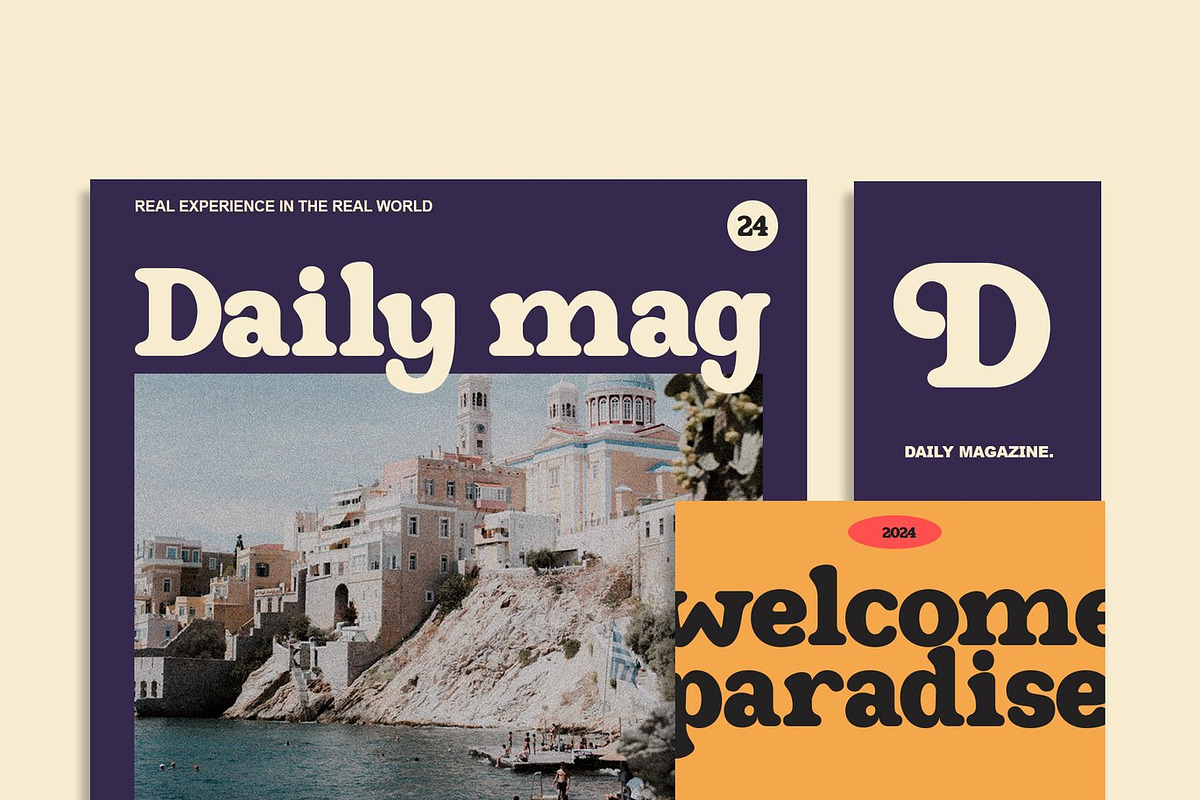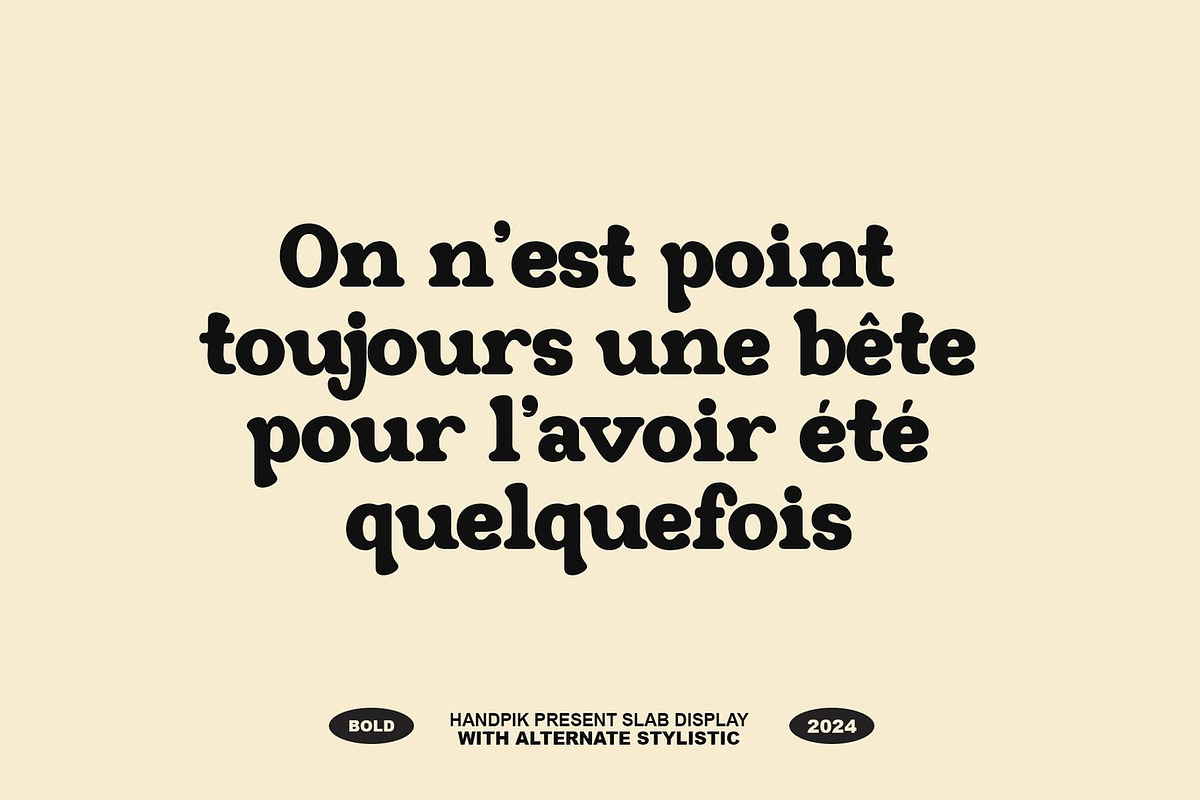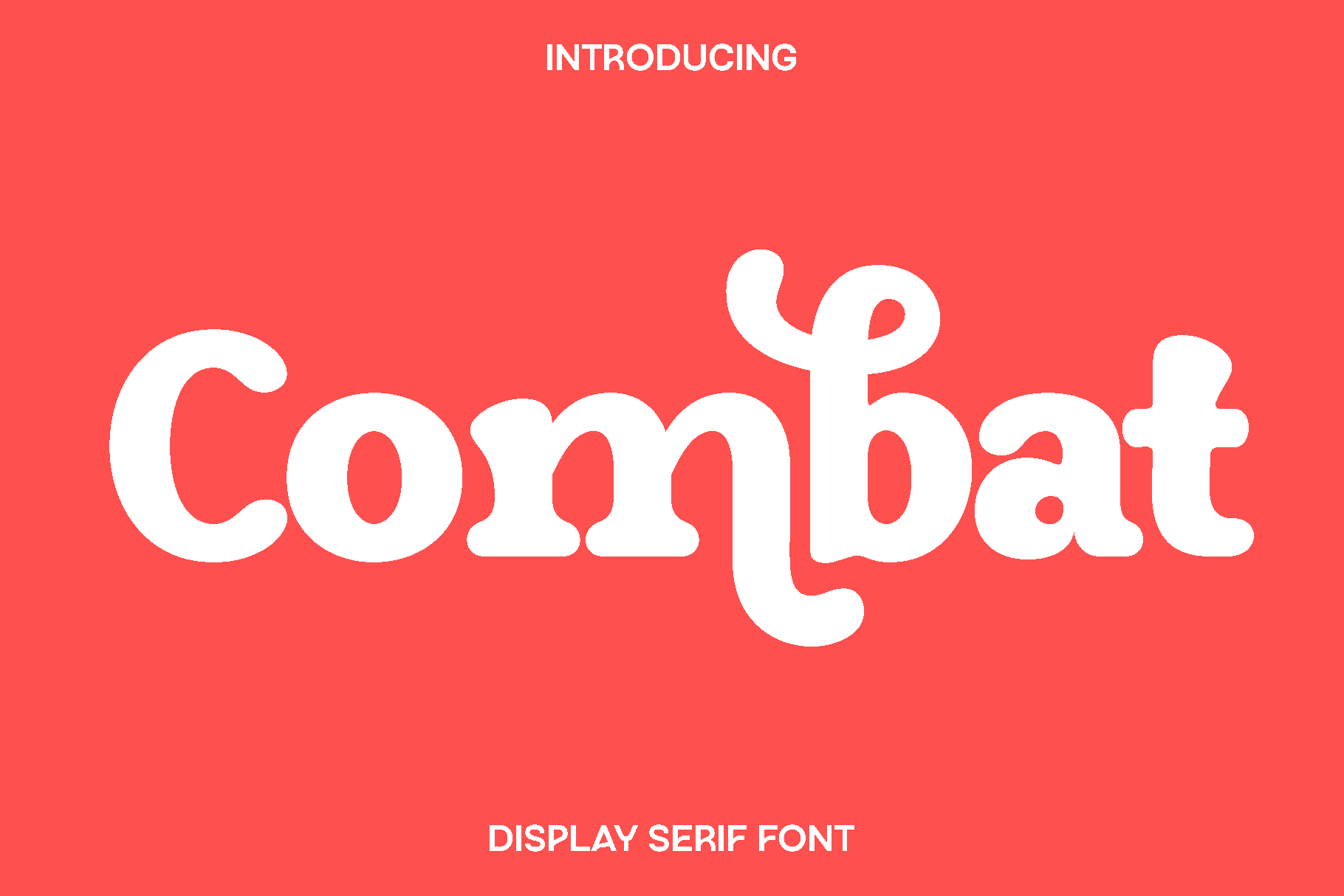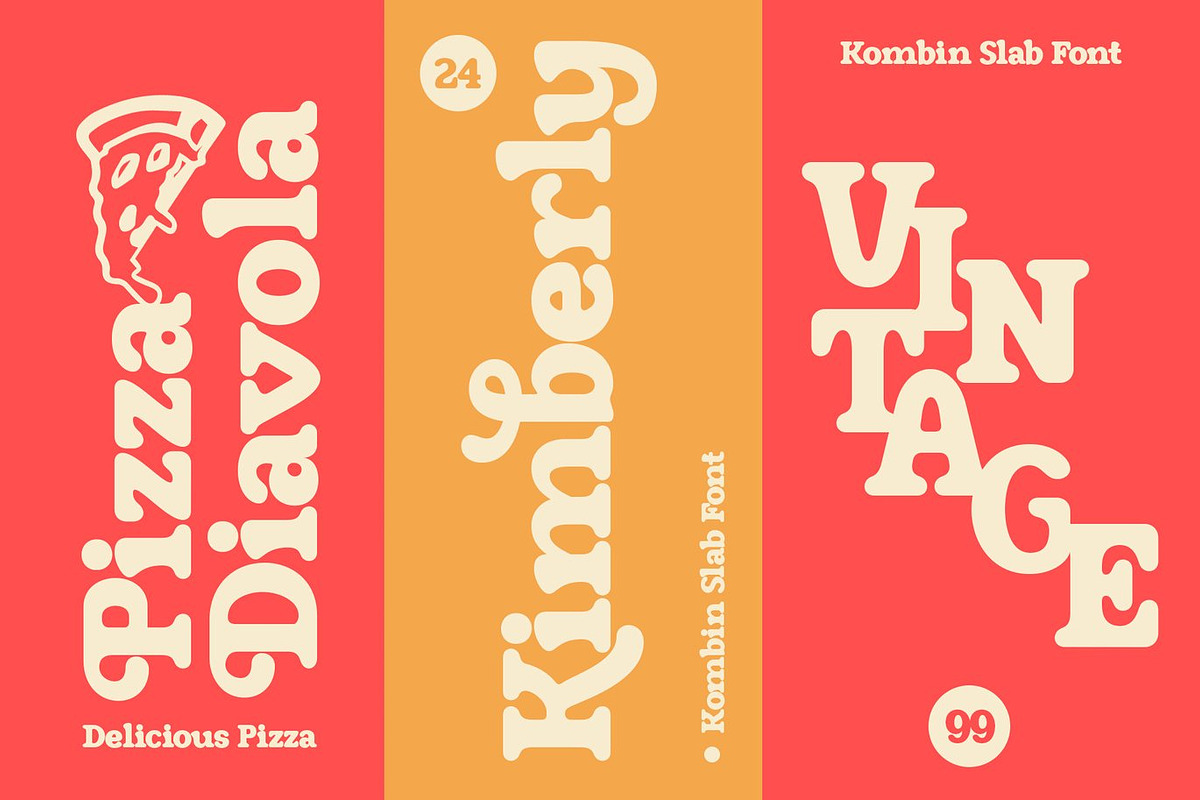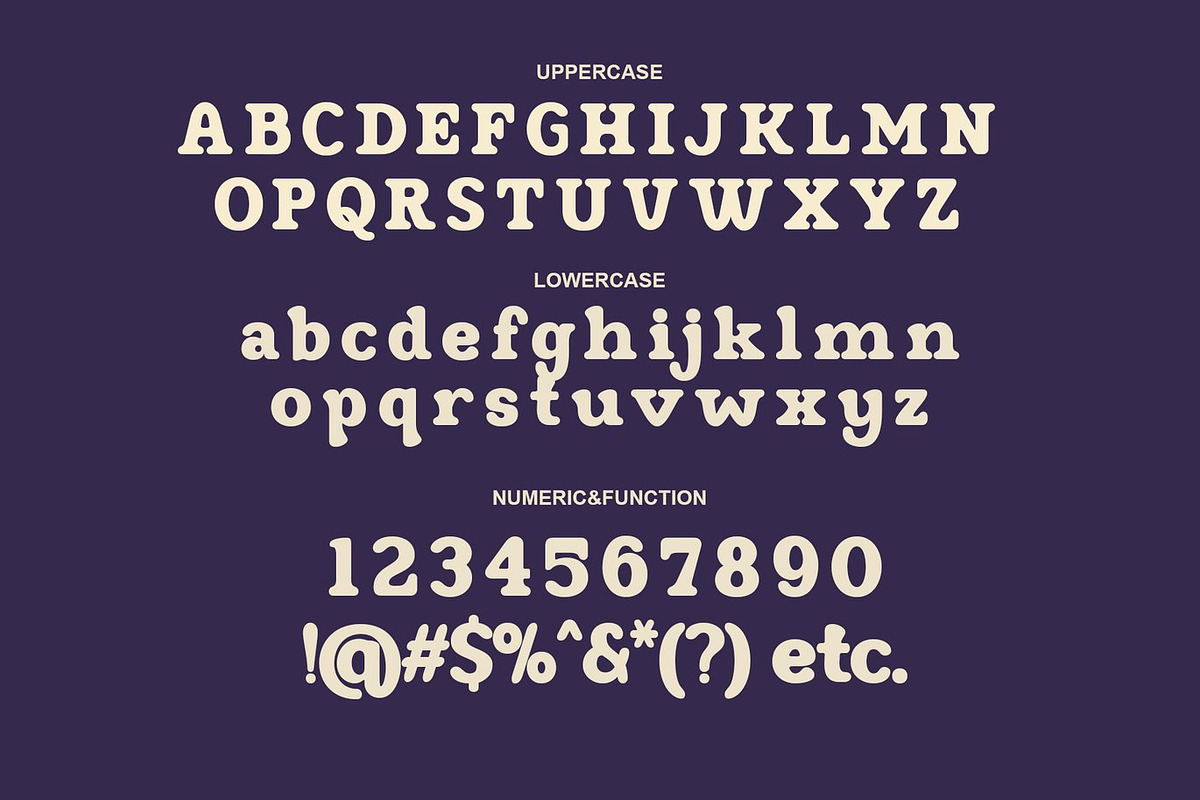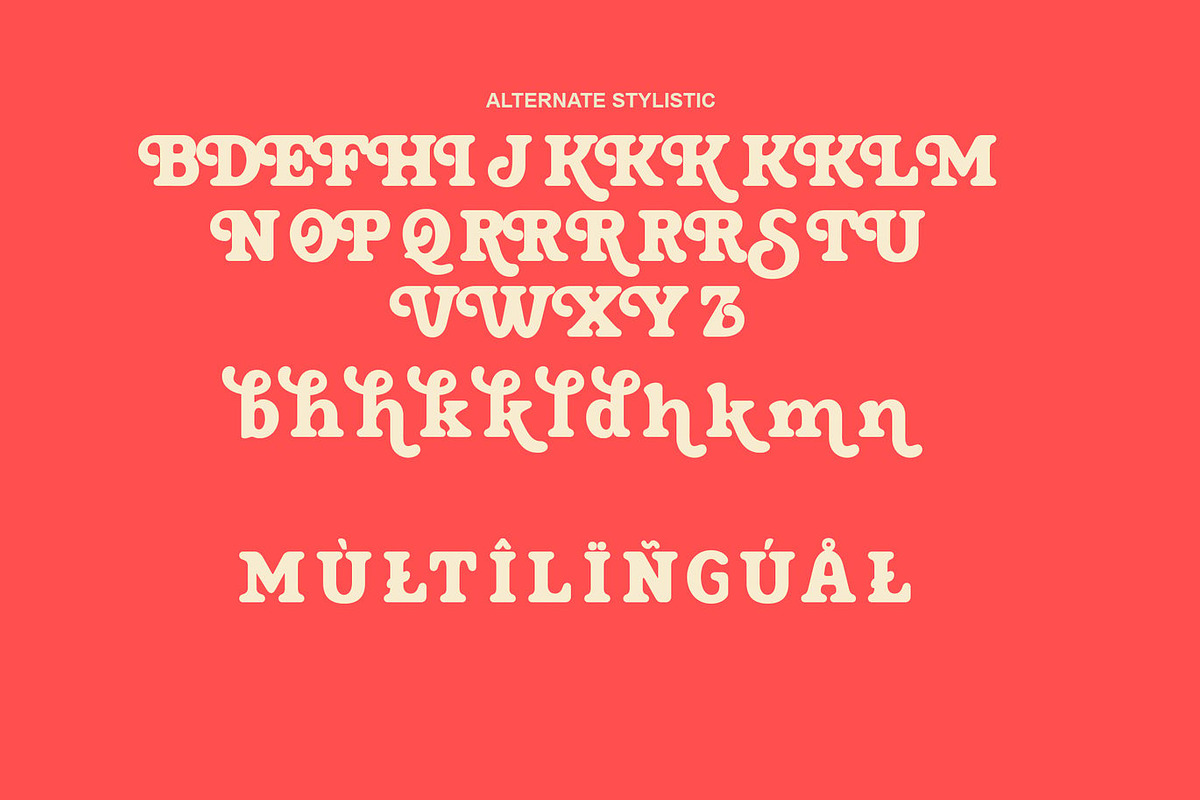
Combat - Display Serif Font
Combat is a powerful display font designed to deliver strength, impact, and confident character in every letter. Inspired by bold typography used in sports, action themed visuals, and strong branding, Combat carries a commanding presence that instantly grabs attention. Its sharp structure and balanced proportions create a dynamic look that feels energetic and modern while maintaining excellent readability.
This typeface was crafted for designers who want their typography to make a statement. Combat works beautifully across a wide range of creative projects including branding, logos, posters, magazines, book covers, advertising campaigns, blog headers, and photography overlays. Whether used for bold headlines or strong visual compositions, Combat adds intensity and personality that helps your message stand out.
The style of Combat blends modern design with a confident edge, making it suitable for both digital and print applications. Its versatile character set allows designers to experiment with expressive typography while maintaining a clean and professional look. From creative branding projects to promotional graphics, Combat brings a sense of power and clarity that enhances your design.
Combat Font Features:
• Uppercase and lowercase characters
• Numerals and functional punctuation
• Alternate and stylistic characters
• Multilingual support
• OpenType features
Combat is a great addition to any designer’s toolkit, providing a bold and versatile typeface that helps transform creative ideas into strong visual statements.